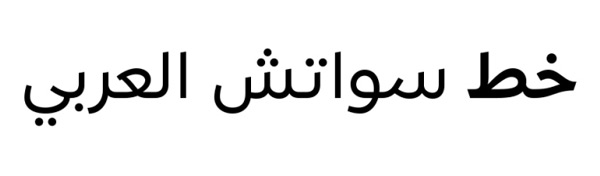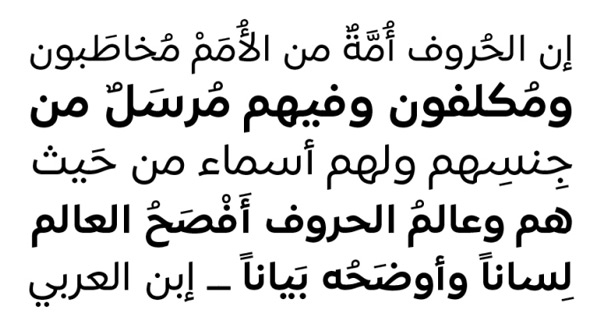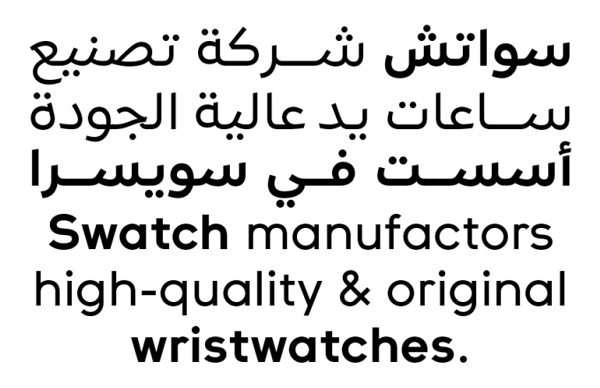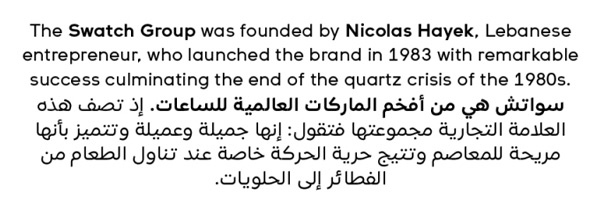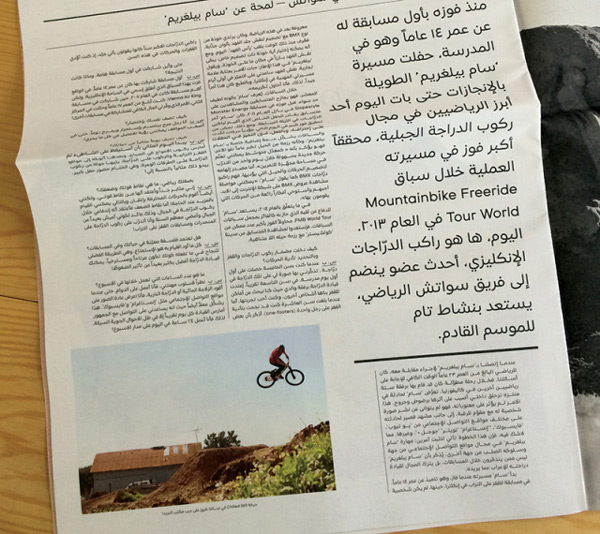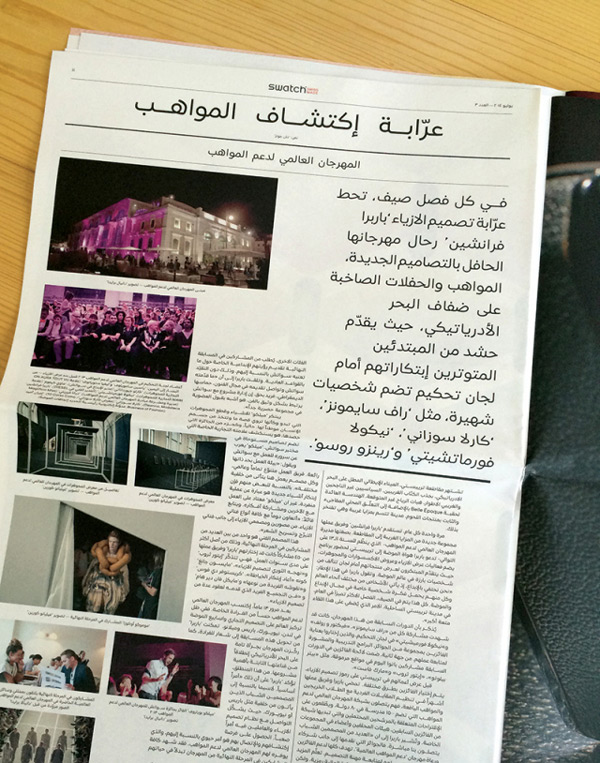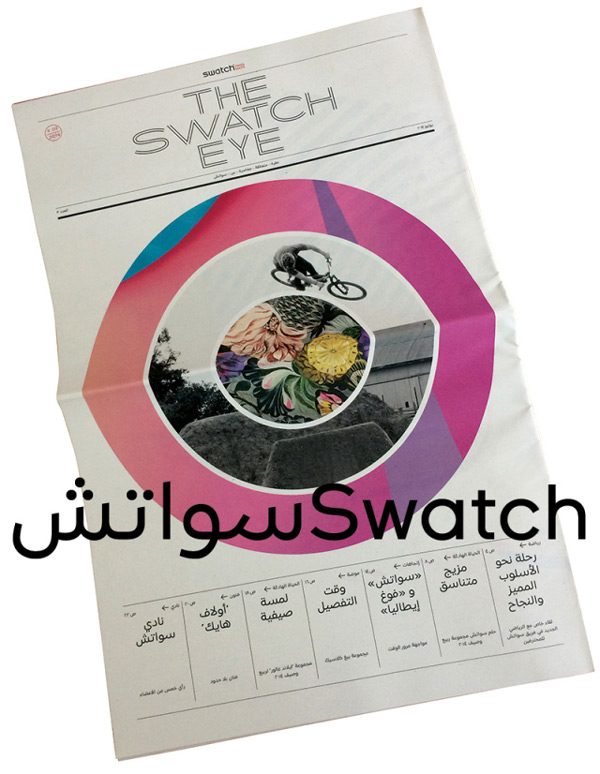
Like many multinational corporations, Swatch gets its own corporate typeface. It was designed by NORM, a Swiss graphic design and typography studio from Zurich.
In 2013, NORM asked Pascal Zoghbi from 29Letters to collaborate on developing the extended Arabic character set for Swatch CT to allow for a consistent and unique corporate identity for Swatch in the Middle East.
The Swatch corporate typeface is now available also in Arabic for use in Middle-Eastern countries, a huge market for the watch maker. The Arabic version perfectly complements the Latin version of the font.